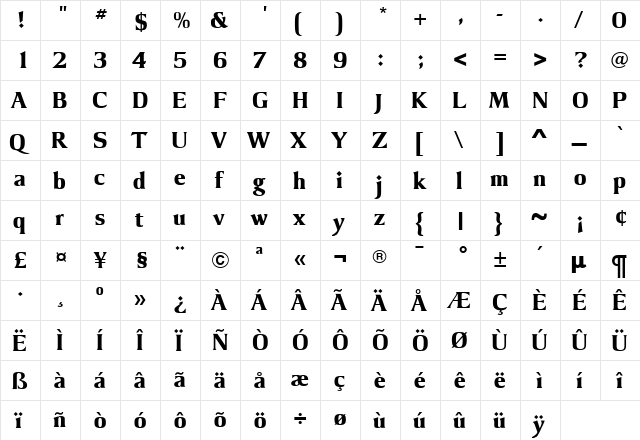
ArgusExtraBold Regular
| Foundry | Copr. Red Rooster Typefounders |
Design Context for ArgusExtraBold Typeface
ArgusExtraBold offers clean, dependable letterforms without strong stylistic allegiance, making it a practical choice for designers who need flexibility. Its bold stroke weight gives it real presence on the page.